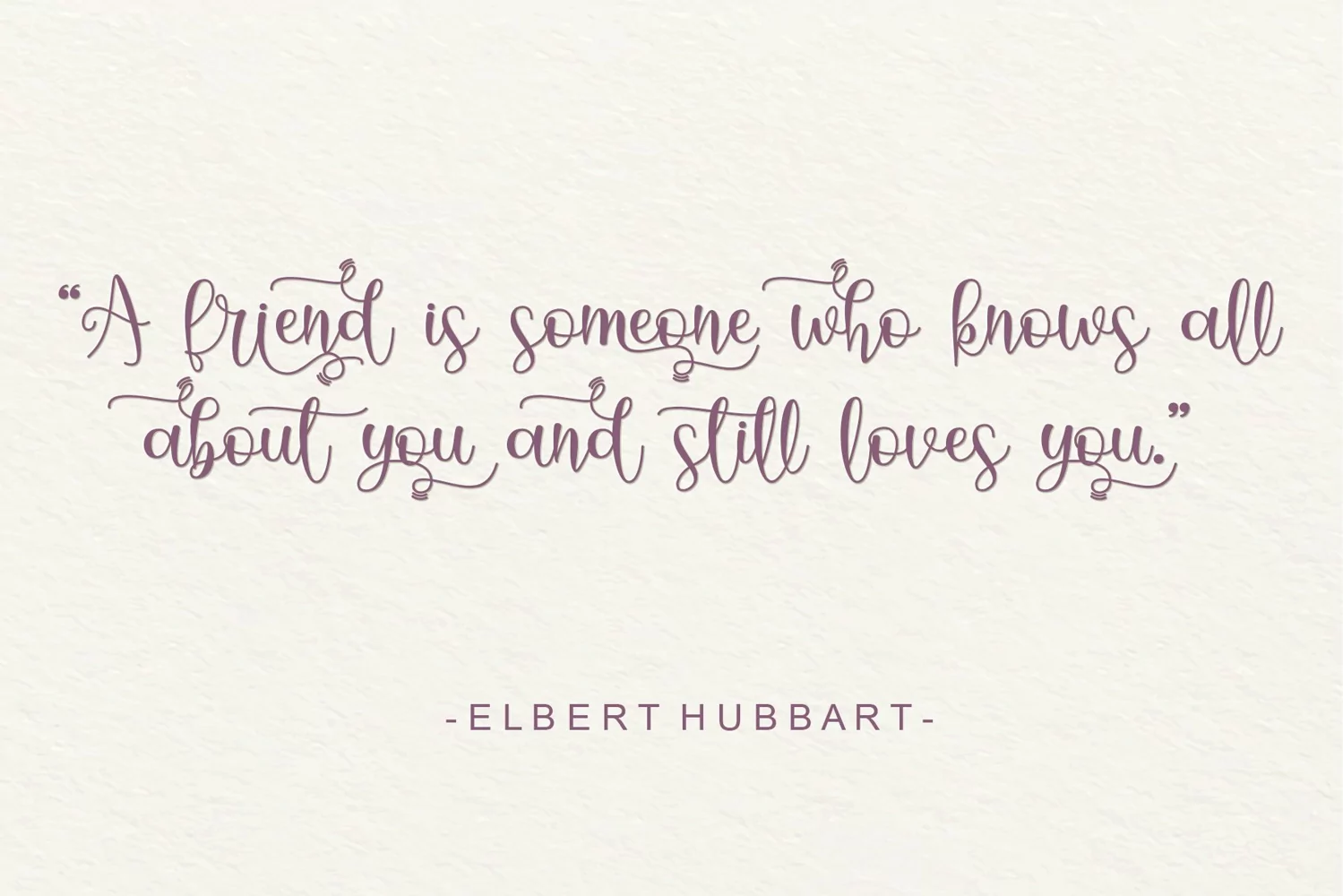
Beautiful Handwritten
WARILAH
Warilah, inspired by my mother's name. I love her and I wish my mother always healthy.
Warilah Font is a modern calligraphy font by Letterafa Studio. It has flowing letters that will give your designs a unique and sweet look with many cute caracters. Warilah font is perfect; logos, greeting cards, a package design, a brand identity, craft design, any DIY project, book title, wedding invitation, packaging, and more.
- Basic Uppercase and Lowercase
- Uppercase Alternate (A-Z)
- Lowercase Swash (a-z)
- Ligature
- Titling
- Number and Punctuation